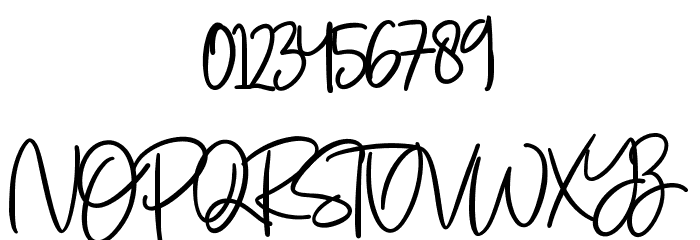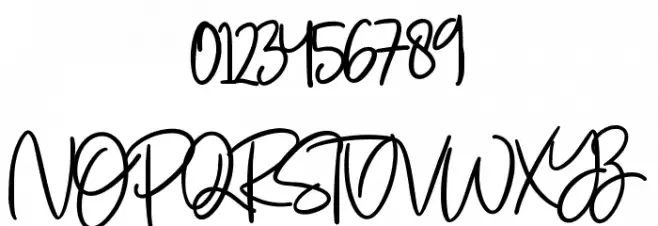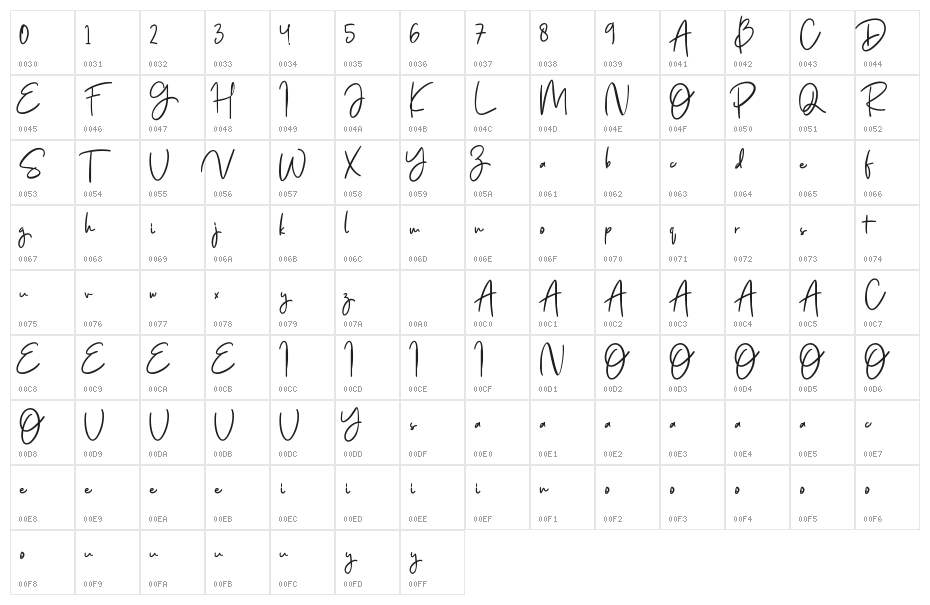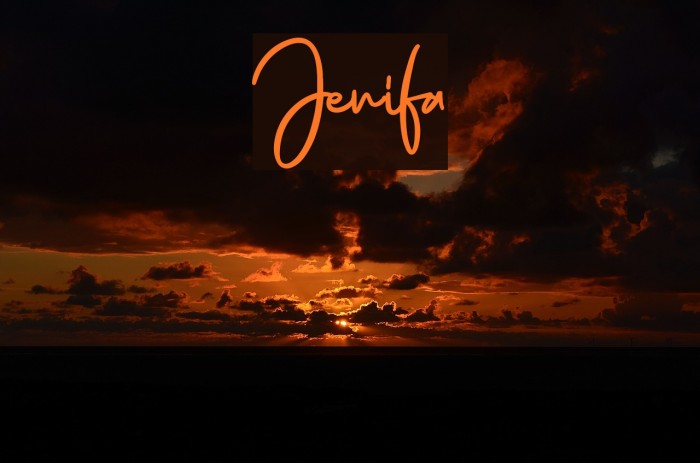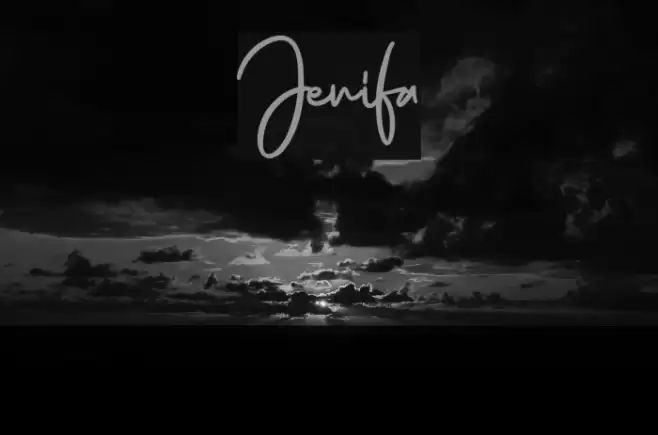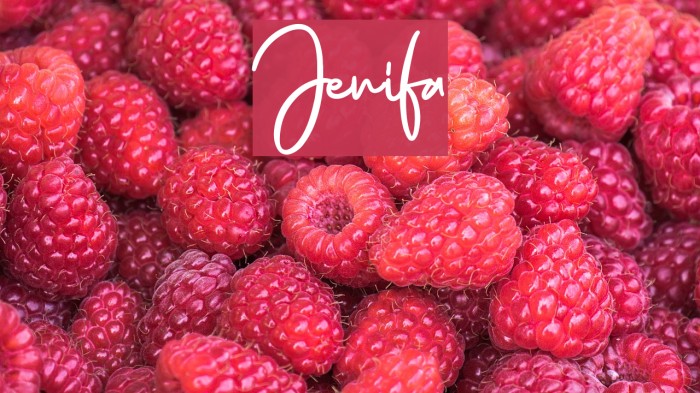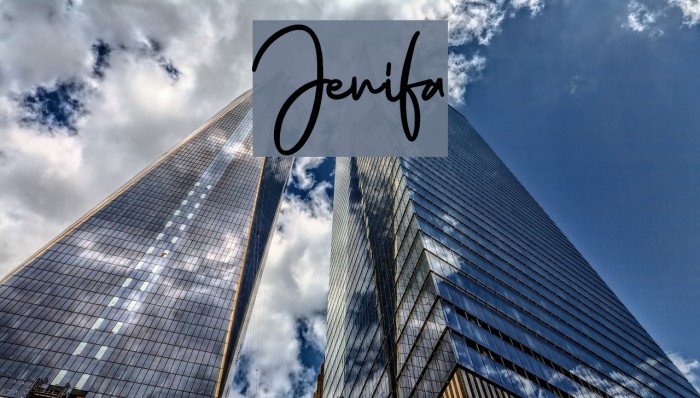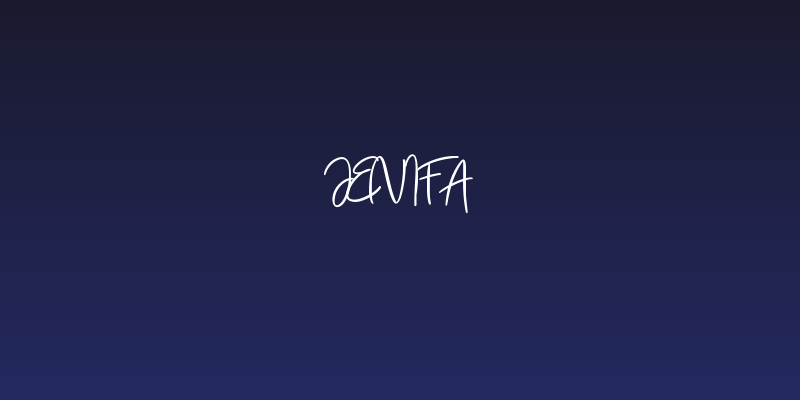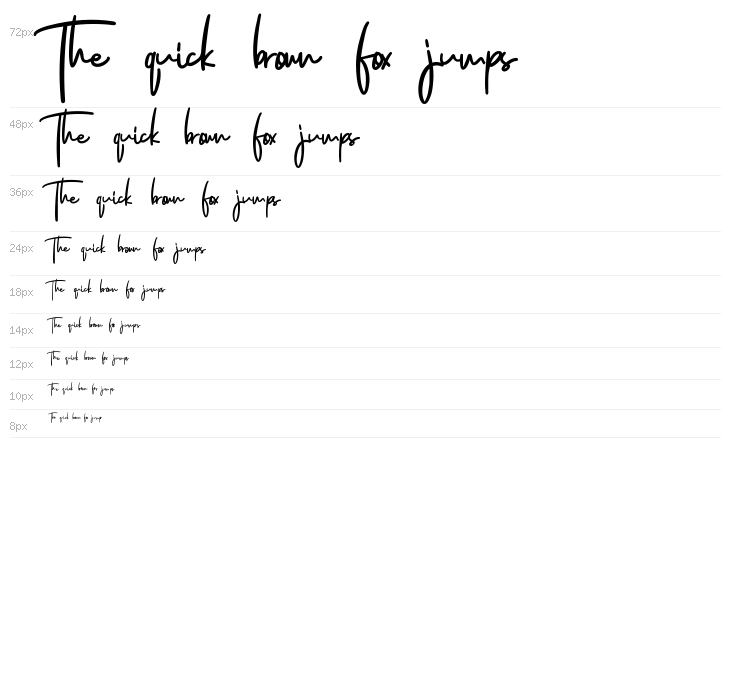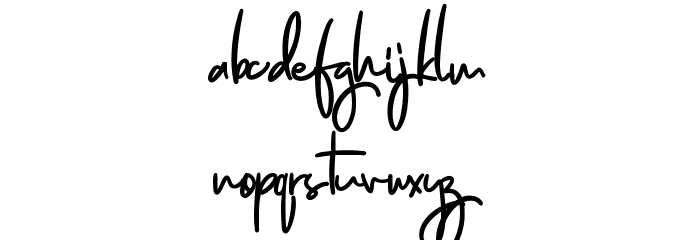
Jenifa Font
Jenifa Description
This font features a lively and dynamic handwritten style, characterized by its fluid and interconnected letterforms. The uppercase letters exhibit a bold and confident presence, with a slight slant that adds to the overall energetic feel. The lowercase letters maintain a consistent flow, enhancing readability while retaining a casual elegance. Numbers and special characters are crafted with the same attention to detail, ensuring a cohesive look across all elements. The font's playful yet sophisticated nature makes it suitable for a variety of creative applications.